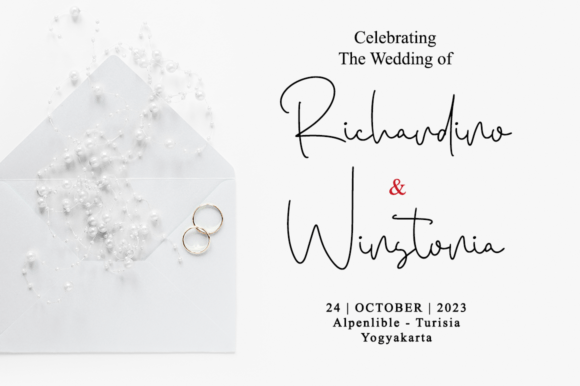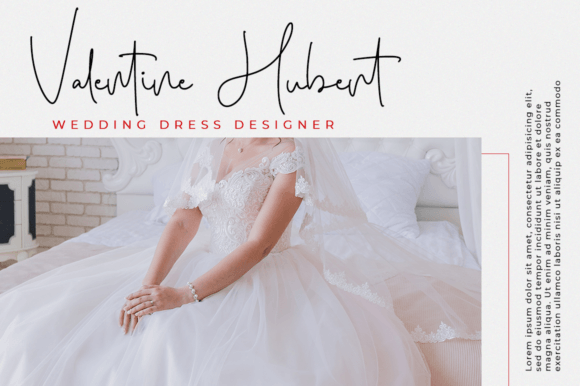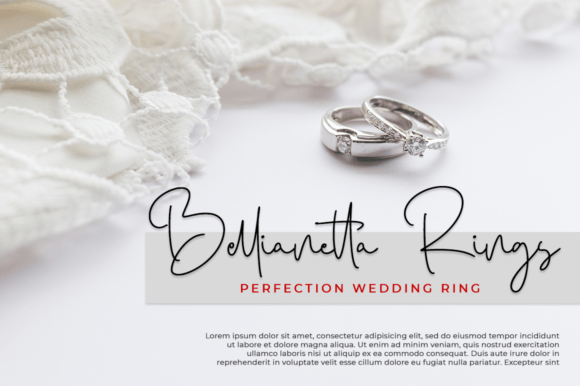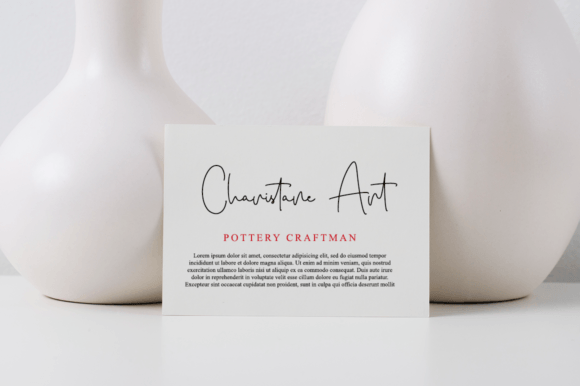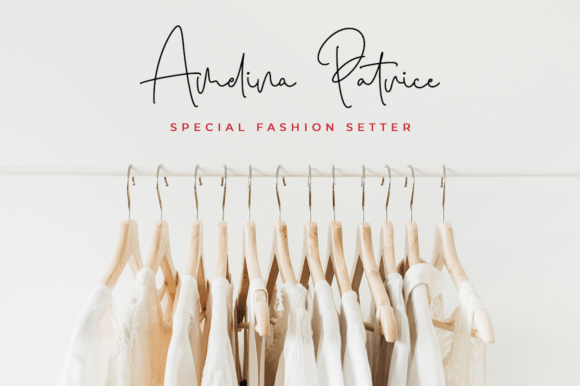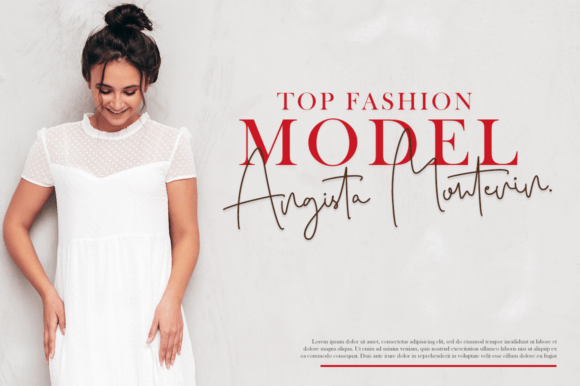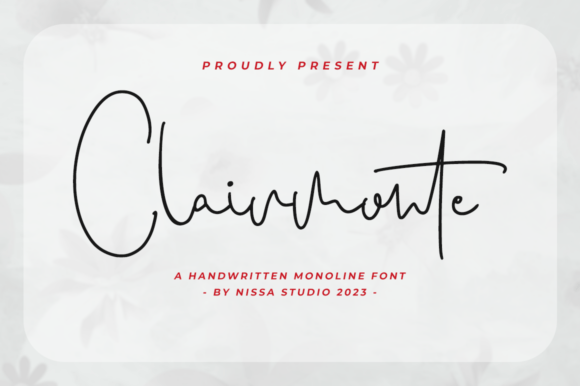
Introducing Clairmonte Font: Elevate Your Designs with Elegance and Sophistication
In the world of typography, a font can make or break a design project. If you’re a designer, craftsperson, or simply someone who appreciates the art of beautiful lettering, you’re likely always on the lookout for unique and captivating fonts to elevate your work. That’s where Clairmonte Font comes in – a stunning, handwritten font that exudes luxury and sophistication.
The Beauty of Clairmonte Font
Clairmonte Font is a beautiful and delicate handwritten font that boasts a unique feel and a stunning impact. Its elegant, cursive lines and intricate details make it the perfect addition to any design project that requires a touch of luxury. Whether you’re working on a branding project, packaging design, or simply a creative endeavor, Clairmonte Font is sure to impress.
What Sets Clairmonte Font Apart
So, what makes Clairmonte Font so special? For starters, it’s PUA (Private Use Area) encoded, which means you can access all of the amazing glyphs and ligatures with ease. This font is designed to provide you with a wide range of creative possibilities, allowing you to experiment with different styles and effects to achieve the perfect look for your project.
Key Features of Clairmonte Font
- Unique and Delicate Design: Clairmonte Font features a one-of-a-kind, handwritten design that’s both elegant and sophisticated.
- PUA Encoded: With PUA encoding, you can easily access all of the font’s glyphs and ligatures, giving you maximum creative flexibility.
- Luxury Appeal: This font is perfect for projects that require a touch of luxury and sophistication, such as high-end branding, packaging design, and more.
- Easy to Use: Clairmonte Font is designed to be user-friendly, making it easy to incorporate into your design workflow.
How to Use Clairmonte Font in Your Designs
Clairmonte Font is perfect for a wide range of design projects, including:
- Branding and Logo Design: Use Clairmonte Font to create a luxurious and sophisticated brand identity that sets you apart from the competition.
- Packaging Design: Add a touch of elegance to your packaging designs with Clairmonte Font, perfect for high-end products and luxury goods.
- Stationery and Invitations: Create beautiful, custom stationery and invitations that showcase your personal style and flair.
- Digital Design: Use Clairmonte Font in your digital designs, such as social media graphics, website headers, and more.